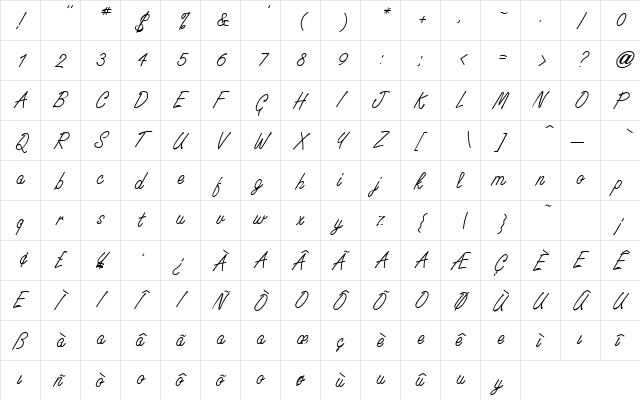
WhisperWrite Regular
Design Context for WhisperWrite Typeface
WhisperWrite is a composed and adaptable typeface that performs quietly and consistently across a wide range of design contexts.